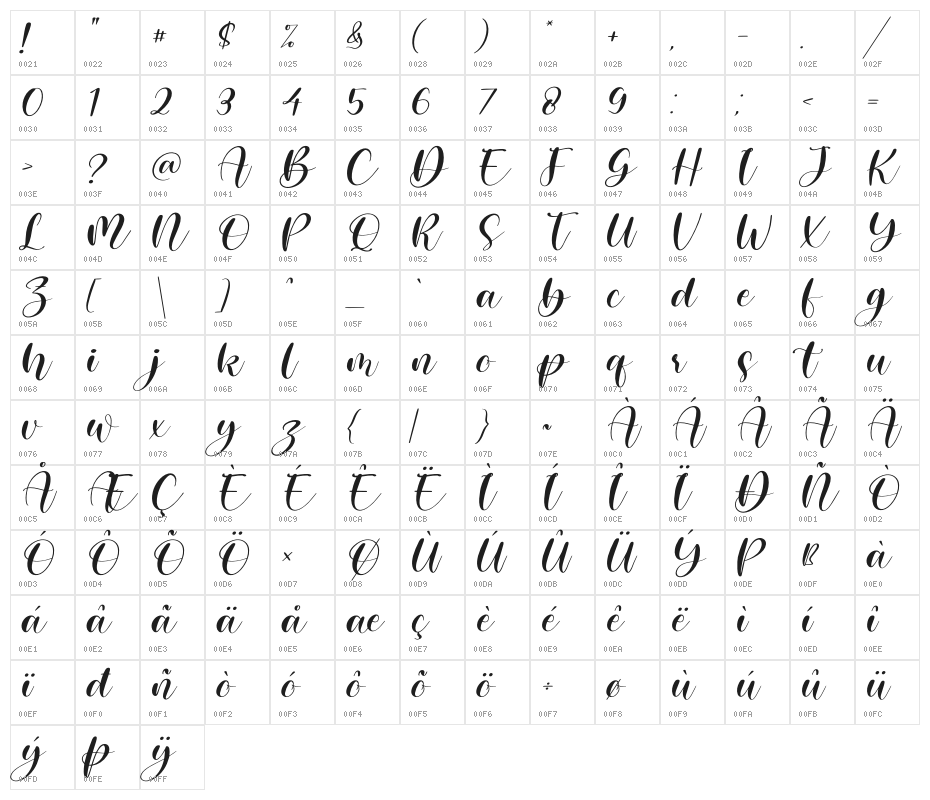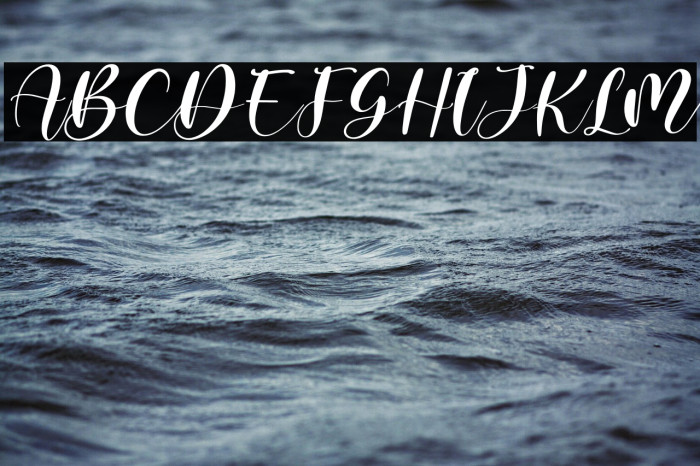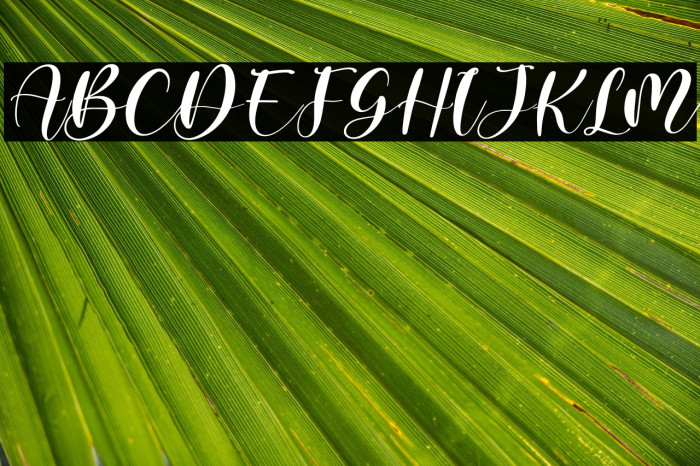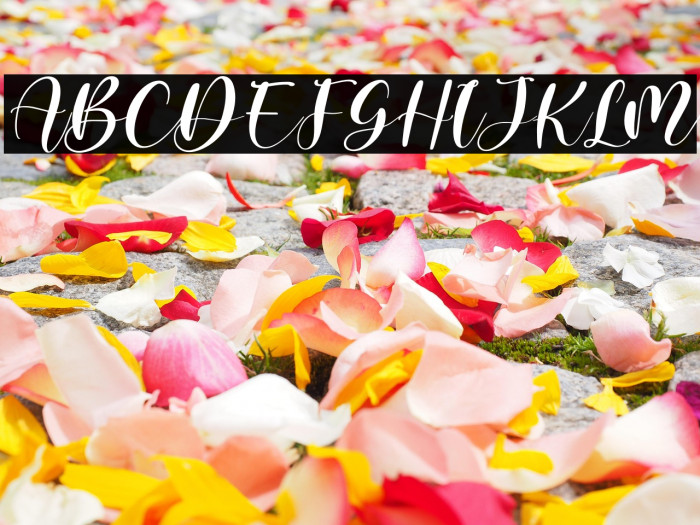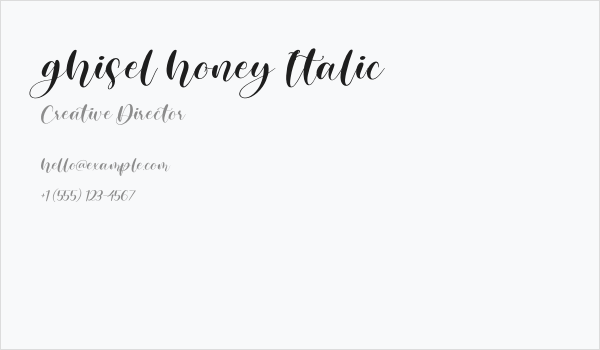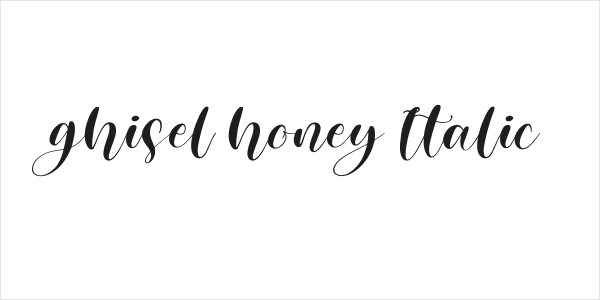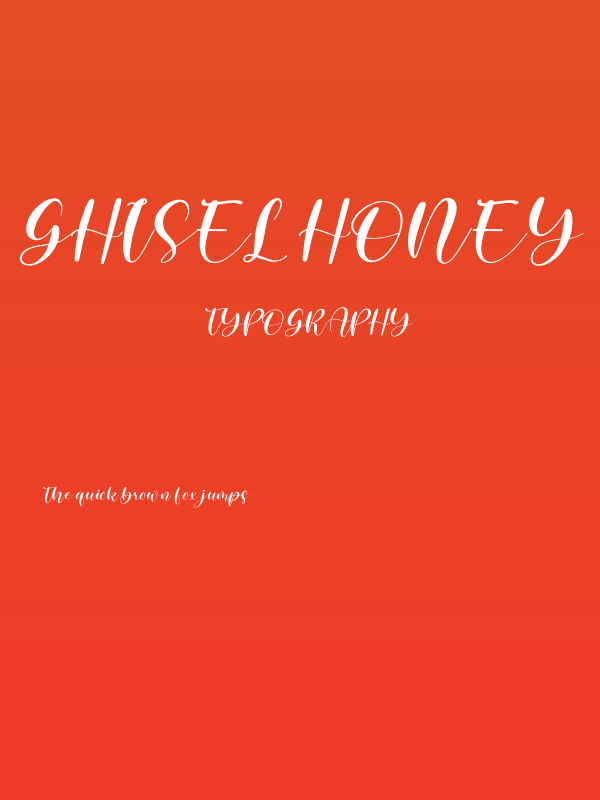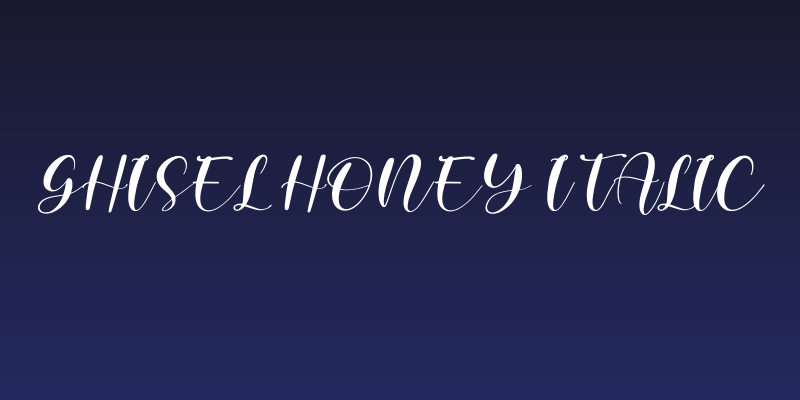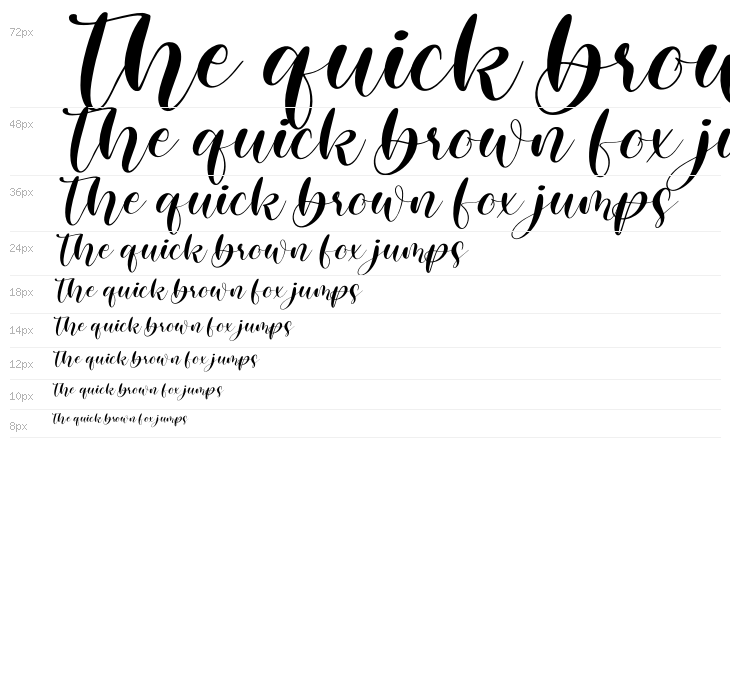
ghisel honey Italic Font
ghisel honey Italic Description
This font features an elegant and flowing script style, characterized by its smooth, cursive letterforms that exude a sense of sophistication and grace. The letters are interconnected, creating a seamless and fluid appearance. The strokes vary in thickness, providing a dynamic contrast that enhances readability while maintaining an artistic flair. The uppercase letters are ornate and slightly larger, adding a touch of formality, while the lowercase letters are more delicate and rounded. The numerals and special characters maintain the same stylistic consistency, ensuring a cohesive look across all text elements.
| Overall Style | Elegant, Decorative |
| Use Case | Headlines, Invitations, Branding |
| Proposed Projects | Ideal for wedding invitations, elegant branding, personal stationery, and decorative headlines. |